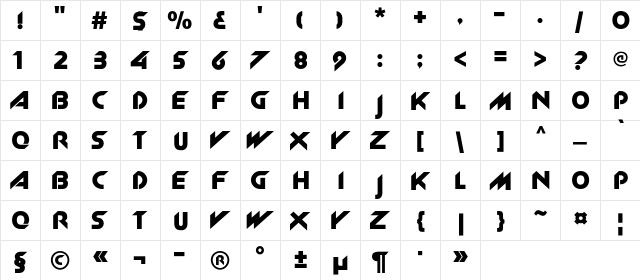
NewZelekC Regular Font Preview
NewZelekC Regular
NewZelekC Regular Font Details
Design Context for NewZelekC Typeface
NewZelekC is a composed and adaptable typeface that performs quietly and consistently across a wide range of design contexts.